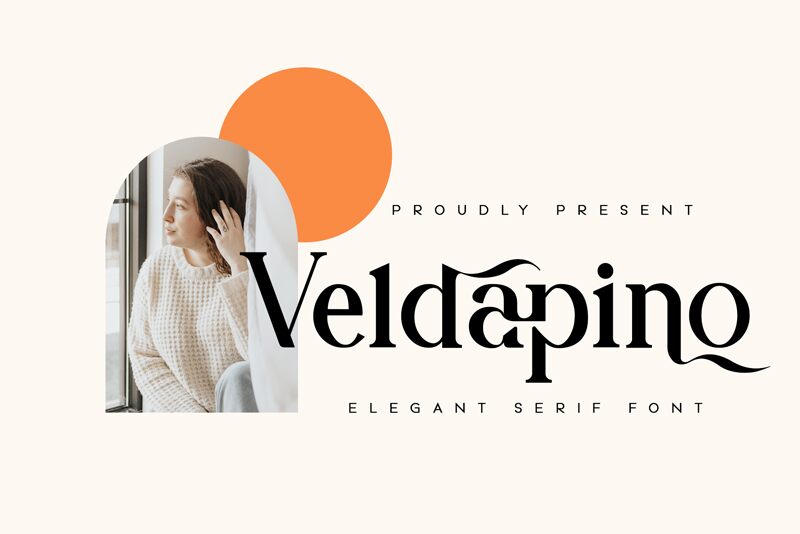
Veldapino, crafted by Wildan Type, exudes an elegant, timeless sophistication. This captivating serif font boasts ornate flourishes and graceful curves, creating a visually striking and alluring aesthetic. The harmonious balance of thick and thin strokes lends a sense of refined sophistication, while the distinctive serifs add a touch of traditional charm. Veldapino's unique character evokes a sense of refined elegance, making it an excellent choice for projects that require a touch of sophistication and timeless appeal.
Veldapino's versatility shines through, making it a versatile choice for a wide range of design applications. Its classic elegance lends itself well to high-end branding, editorial layouts, and formal invitations, while its legibility and timeless appeal also make it suitable for body text in books, magazines, and advertising materials. Whether you're crafting a luxurious logo, designing a prestigious event, or seeking a timeless typeface for your next publishing endeavor, Veldapino's captivating presence is sure to elevate your project with its refined and sophisticated charm.
Veldapino